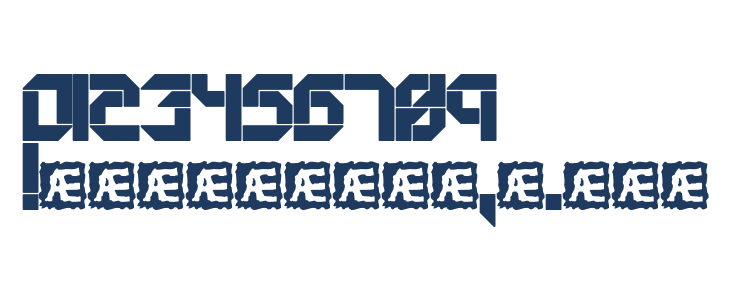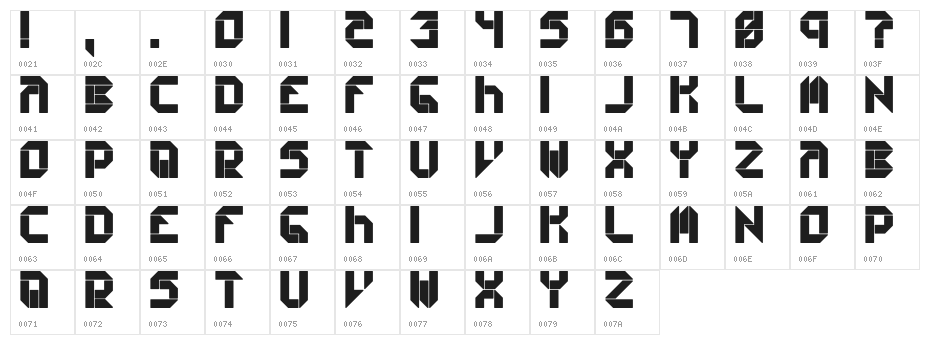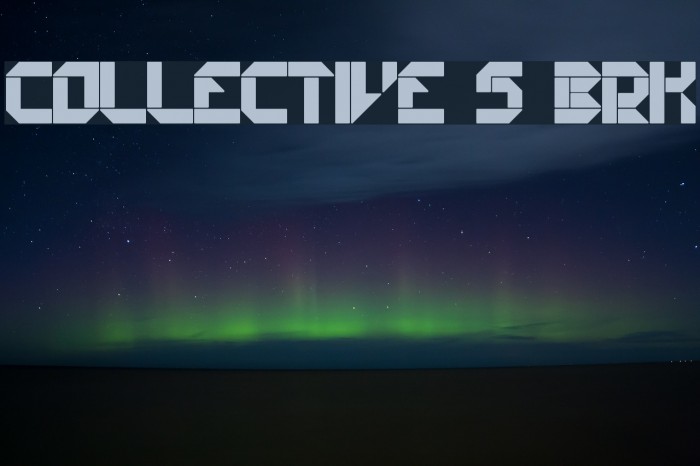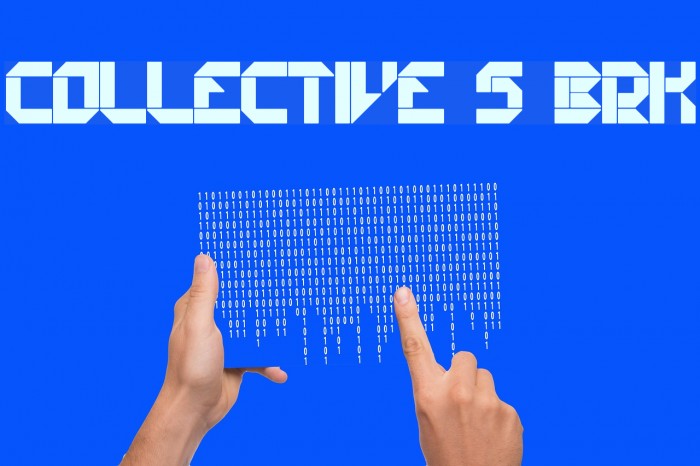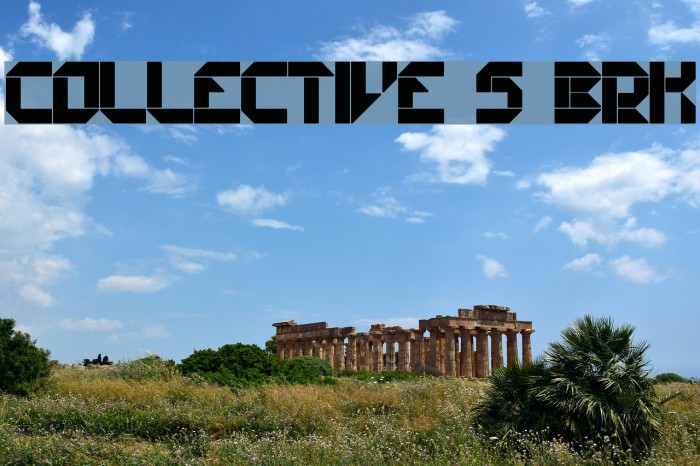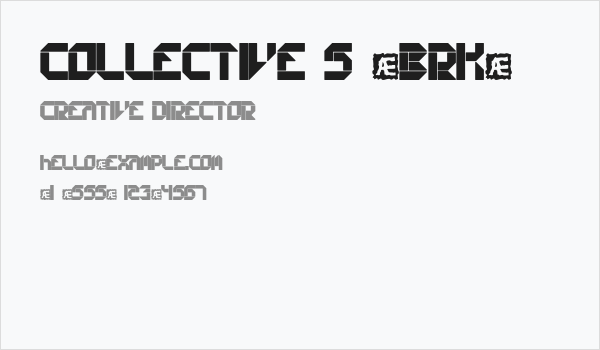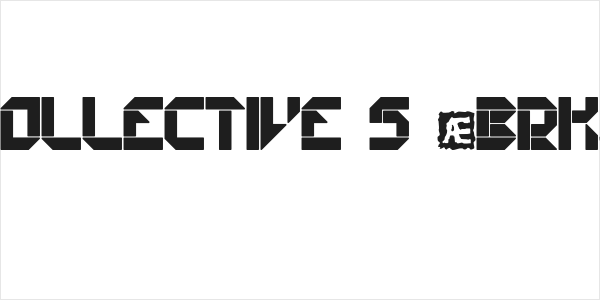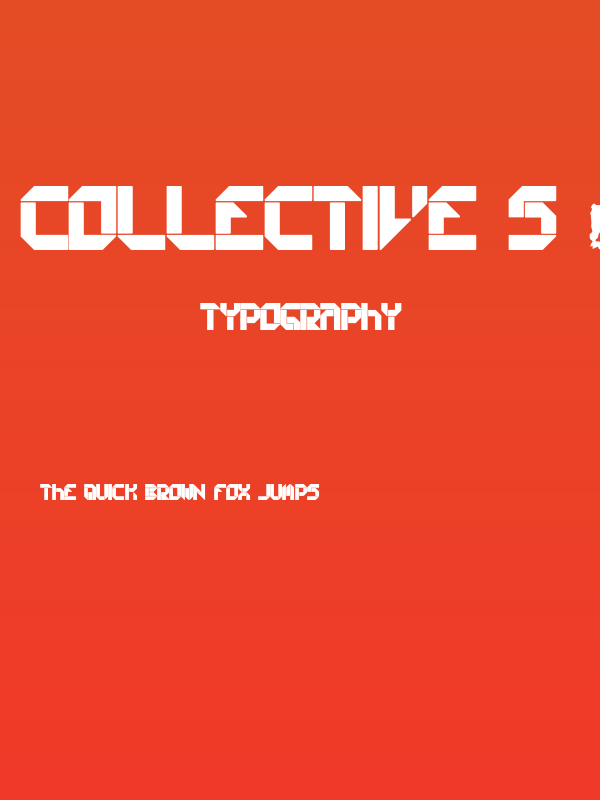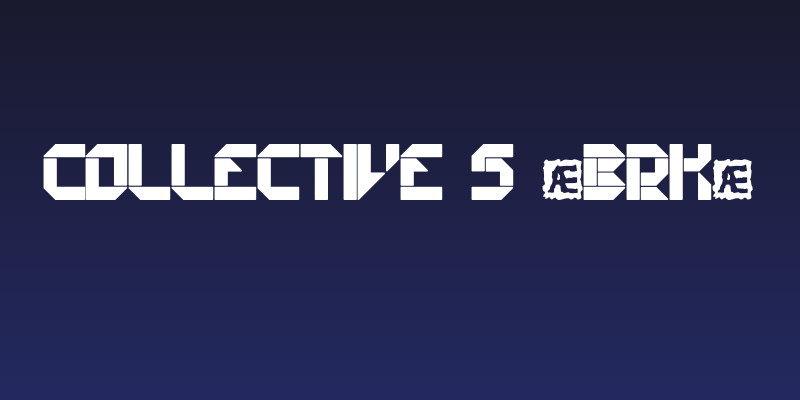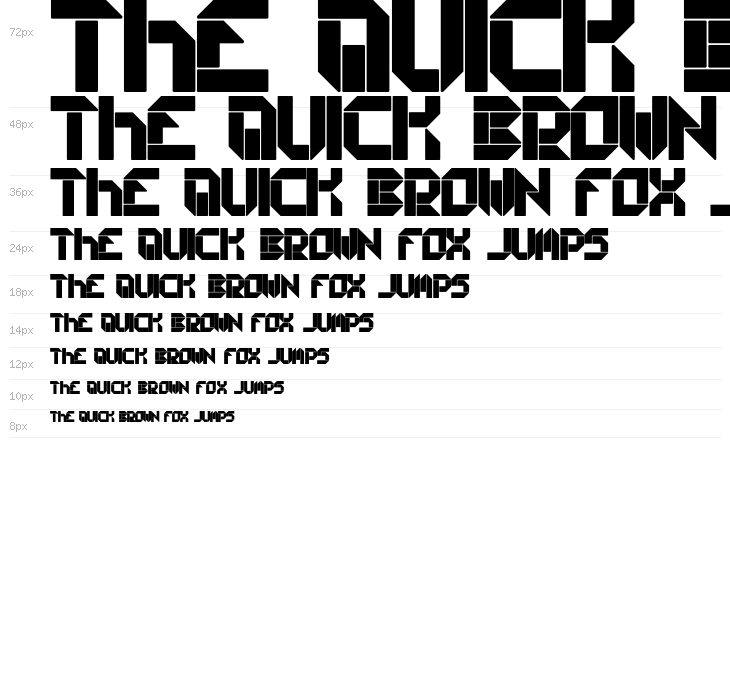
Collective S [BRK] Font
Collective S [BRK] Description
This font features a bold, geometric design with a futuristic and industrial feel. Each character is constructed using sharp angles and block-like shapes, creating a sense of structure and modernity. The uppercase letters are particularly striking, with a uniform height and width that gives them a monospaced appearance. The numbers and special characters follow the same design principles, ensuring consistency across all elements. The font's unique style makes it stand out, making it suitable for projects that require a strong visual impact.
| Proposed Projects | Ideal for sci-fi themed designs, video game graphics, posters, and branding that requires a modern and edgy look. |